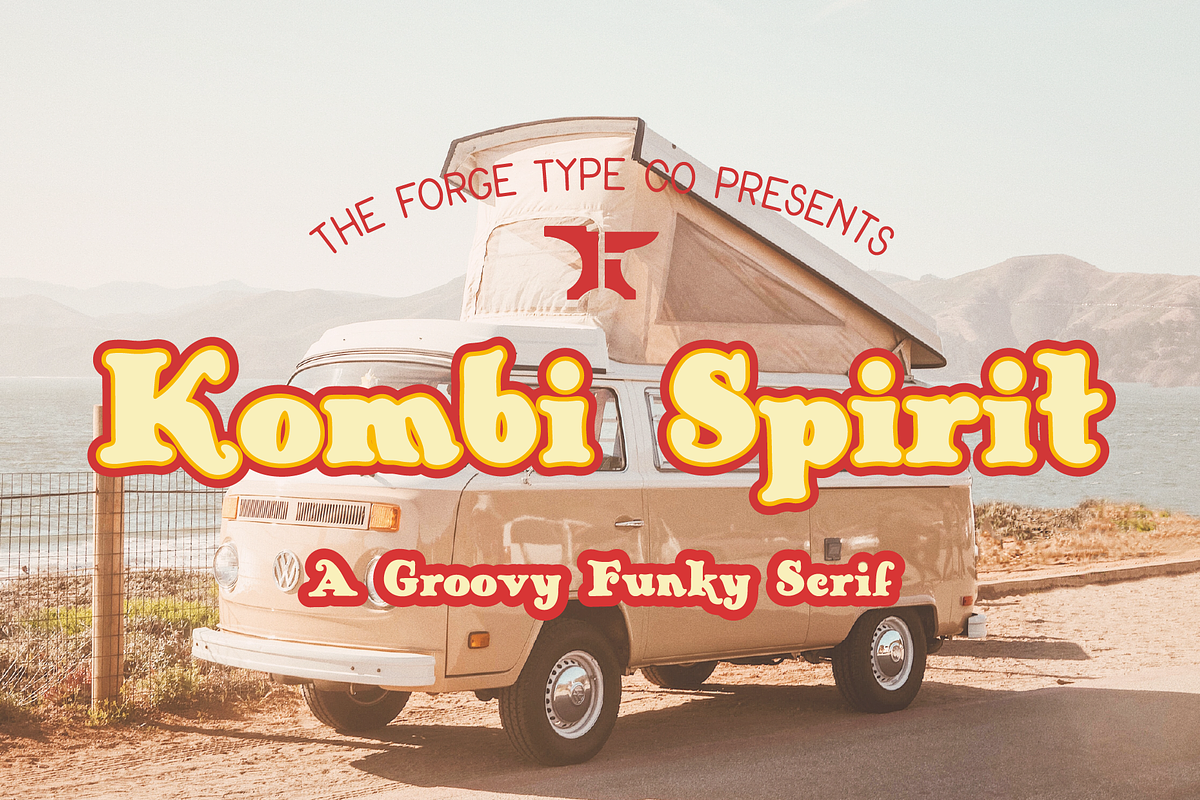
Kombi Spirit - A Groovy Funky Serif Font Free Download is a vibrant and retro-inspired typeface that oozes funky flair and vintage soul. With its chunky serifs, playful curves, and psychedelic attitude, this font is perfect for posters, album covers, fashion branding, event flyers, and anything that channels that bold 70s groove.
Kombi Spirit - A Groovy Funky Serif Font Free Download brings rhythm to your typography with every swirly letterform and dance-worthy detail. Whether you're crafting a retro ad campaign, funky product packaging, or Instagram graphics that pop, this font delivers serious personality with a whole lot of flair.
It shines in colorful, expressive layouts and pairs well with bold patterns, vintage textures, and funky illustrations. Let your creativity boogie, your designs strut, and your headlines steal the show.
With Kombi Spirit, every letter says, “Turn up the funk!”